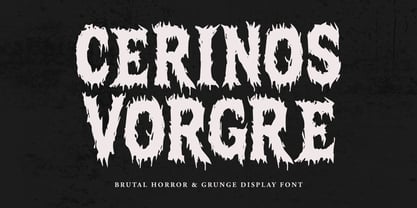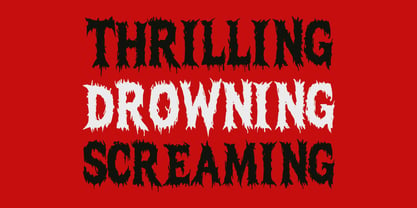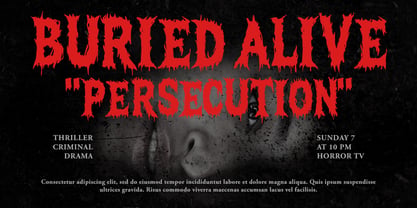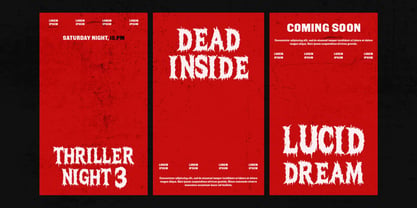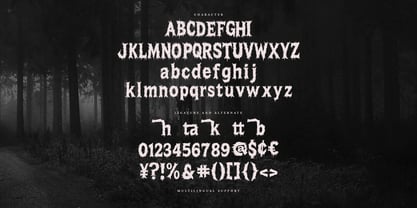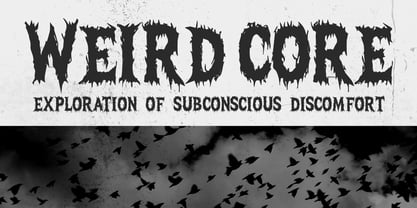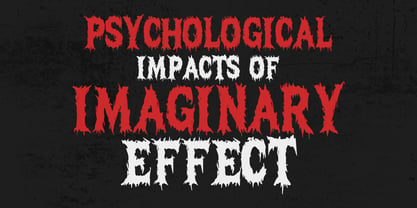
MC Cerinos Vorgre
by Maulana Creative
The MC Cerinos Vorgre Font Family was designed by Gilang Maulana and published by Maulana Creative. MC Cerinos Vorgre contains 1 styles. More about this family
Cerinos Vorgre is a raw, aggressive display font designed to evoke terror and suspense. Featuring sharp, jagged edges and a distressed, hand-drawn aesthetic, this typeface captures the essence of classic slasher films and underground metal aesthetics. It is the perfect choice for horror movie titles, heavy metal album covers, spooky Halloween branding, and any project that requires a dark, menacing presence.
Designers: Gilang Maulana
Foundry: Maulana Creative